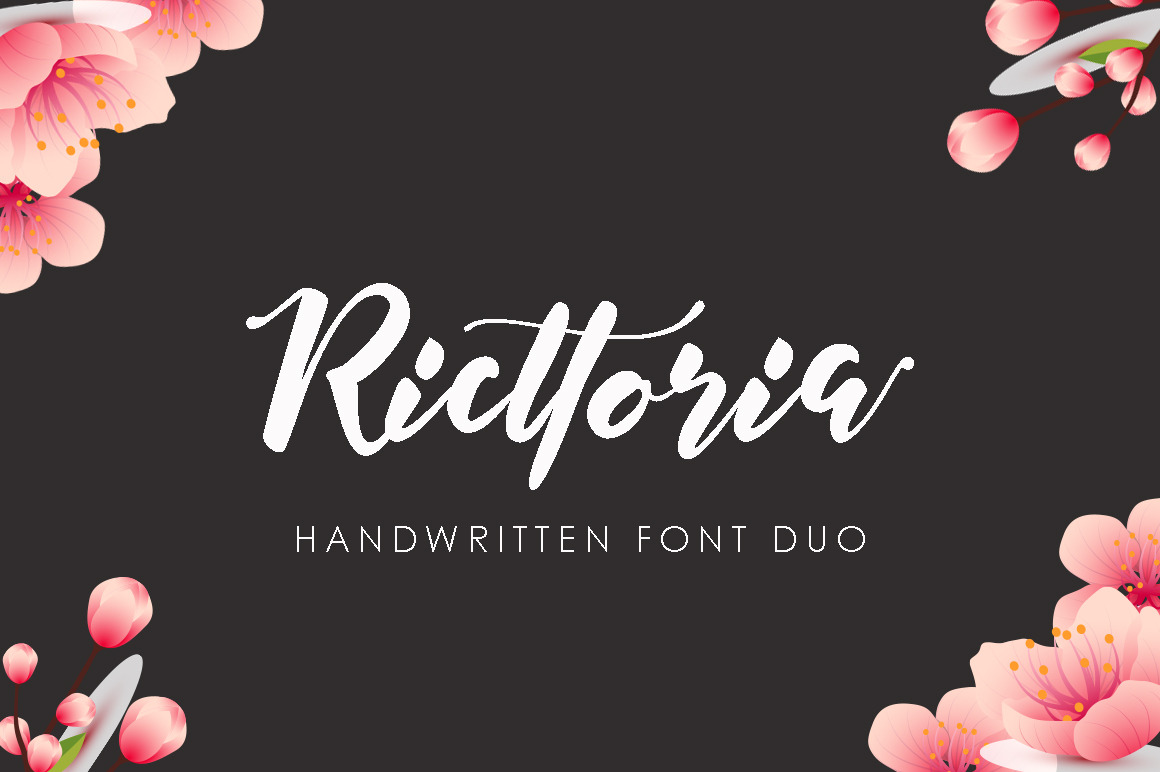
Ricttoria Font Duo
Ricttoria is modern script font. With modern script style this font will perfect for many different project ex: quotes, blog header, poster, wedding, branding, logo, fashion, apparel, letter, invitation, stationery, etc.